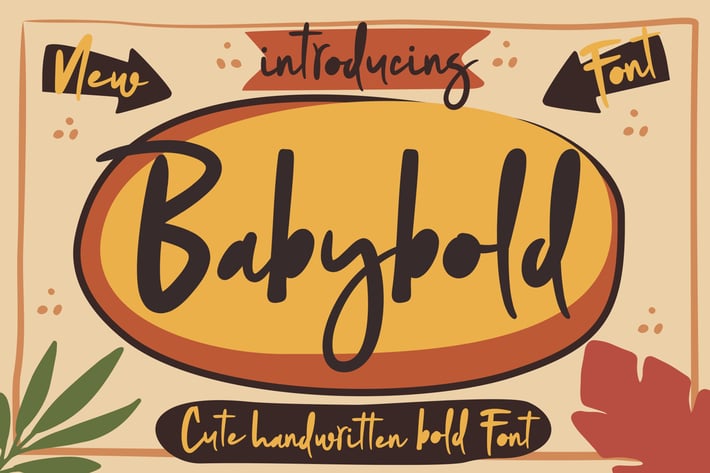
Babybold - Cute Handwritten Bold Font
Babybold is a fun and cute display font. It has a playful style and great readability.
This is a font with a good balance of rhythm and contrast.
Babybold perfect for Christmas cards, branding, stationery, blog design, custom art, apparel, packaging, headline ,book covers, posters advertising, greeting cards, logos, marketing, magazines or anything that requires cute handwritten lettering.